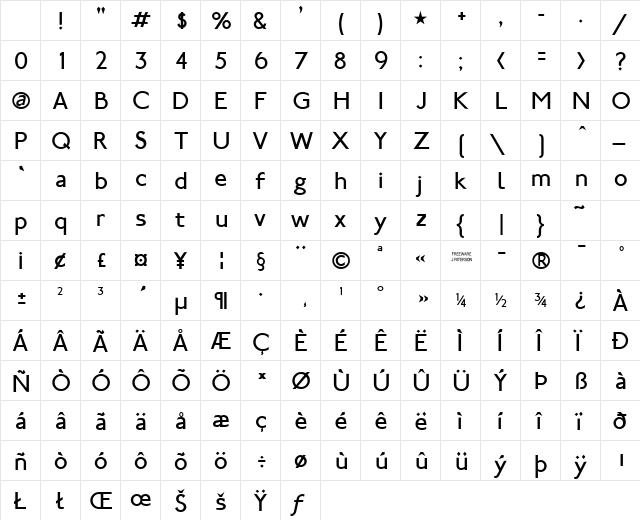
London Tube Normal
Design Context for London Tube
London Tube is a composed and adaptable typeface that performs quietly and consistently across a wide range of design contexts.